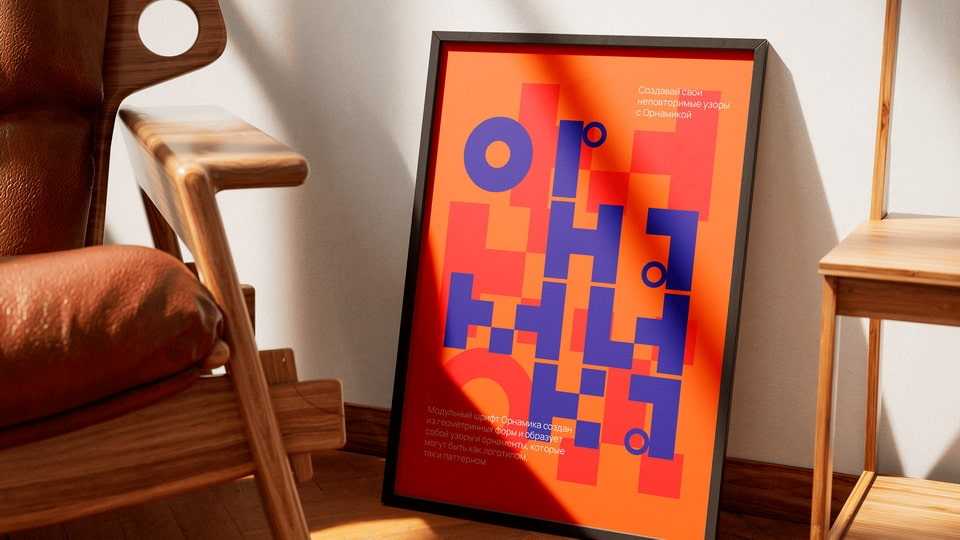
Download Ornamika font, an experimental modular typeface that combines 6 modules. Thanks to geometric shapes, Ornamika creates patterns and ornaments that can be either a logo or a pattern.
Designer: Olya Chugaeva